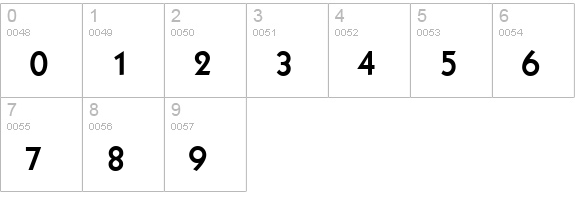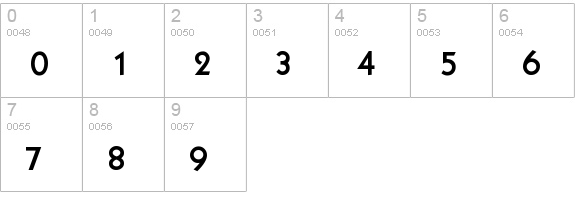
K791-Geometrical-Bold Font Details
K791-Geometrical-Bold is a strong, high-contrast variant in the K791 typeface family \xE2\x80\x94 well suited to headlines, attention-grabbing titles, and strong calls-to-action.
K791-Geometrical-Bold is a modern and stylish font that exudes confidence and sophistication. Its geometric shapes and bold lines make a bold statement, perfect for any design project that requires a strong and impactful typeface. The clean and sharp edges of this font give it a sleek and professional look, ideal for branding, advertising, and editorial design. The K791-Geometrical-Bold font is versatile and can be used in a variety of design applications, from headlines and titles to logos and posters. Its bold and striking appearance will grab the attention of viewers and make your message stand out. Best of all, K791-Geometrical-Bold is available for free download at FontsMarket.com, making it accessible to designers and creatives looking for a high-quality font without breaking the bank. So don't hesitate to add this eye-catching and modern font to your collection today!